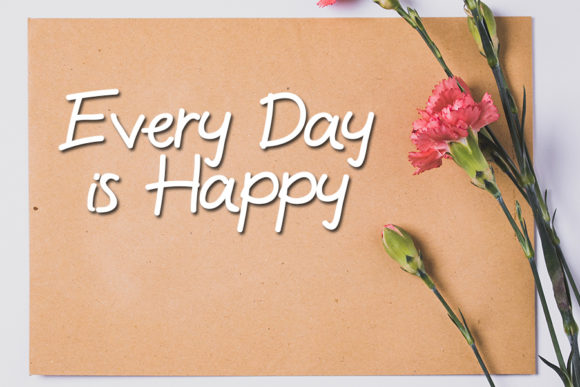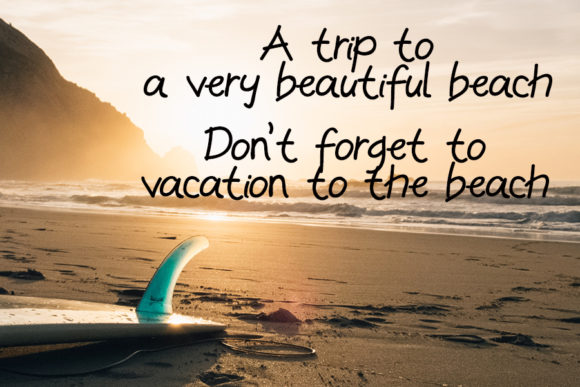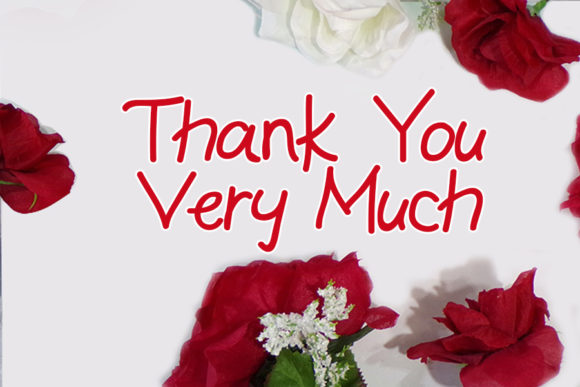
Simple Life Font
About Simple Life Font
Introducing “Simple Life” – a beautiful and attractive script font that captures the essence of simplicity and elegance. With its clean and versatile style, this font is a perfect choice for enhancing your various craft designs.
Simple Life’s graceful letterforms exude a sense of beauty and sophistication. Its simplicity and ease of use make it a versatile font that can be effortlessly mixed with different design elements. Whether you’re working on crafts, invitations, branding materials, or any other creative project, Simple Life will add a touch of elegance and refinement.
The clean and minimalistic nature of Simple Life allows it to seamlessly blend with various design aesthetics. Its versatility ensures that it can enhance a wide range of craft designs, from modern and minimalist to vintage and rustic. Mix Simple Life with your creative ideas, and notice how it elevates your designs to a new level of beauty.
Embrace the beauty and attractiveness of Simple Life, and notice how it enhances your various craft designs with its elegant and clean style. Let it be the font that adds a touch of sophistication to your creative projects. With Simple Life, your designs will exude a sense of simplicity and beauty that captures attention and leaves a lasting impression.